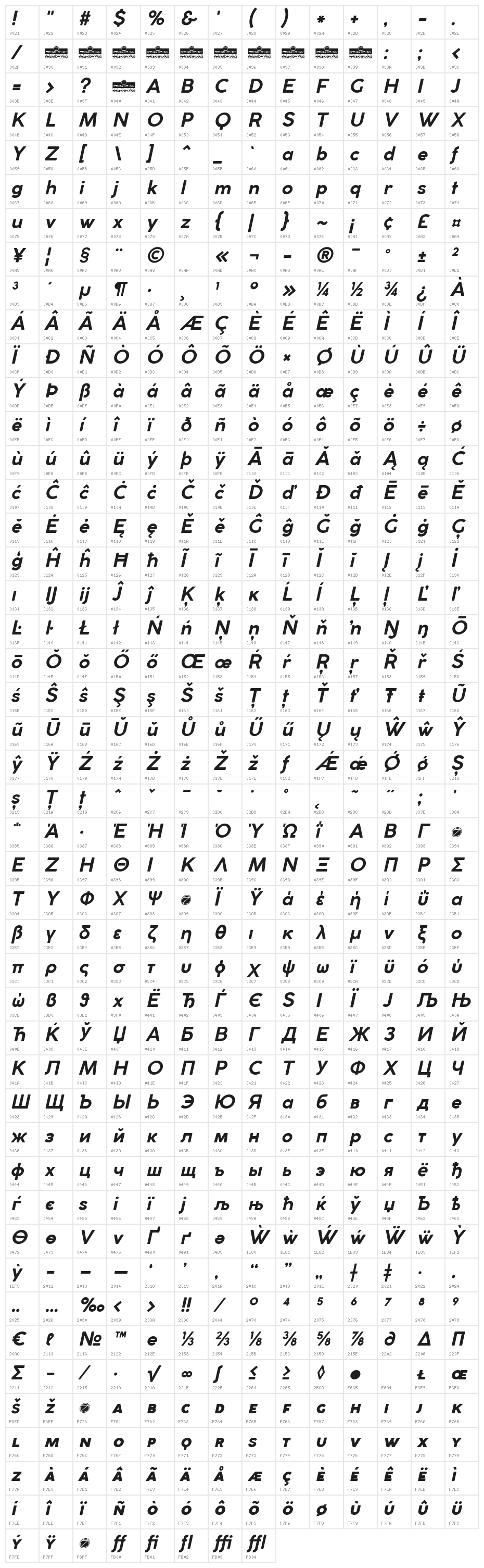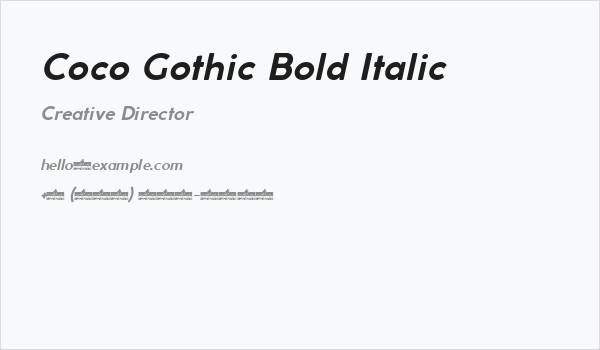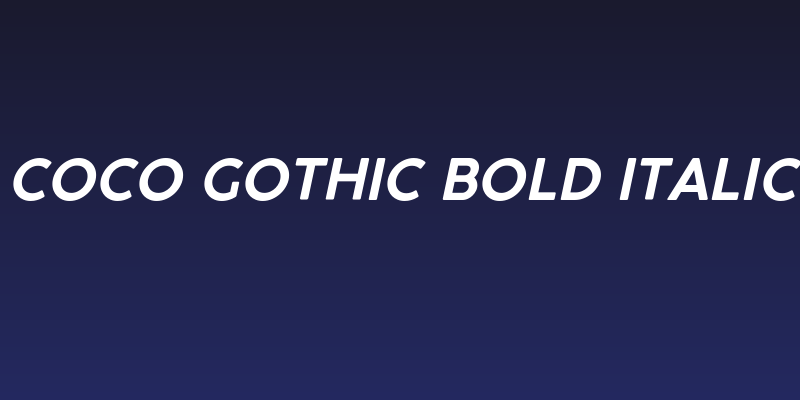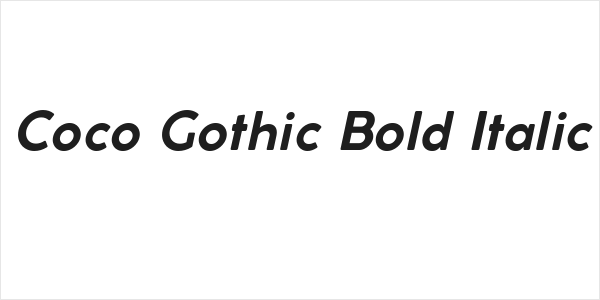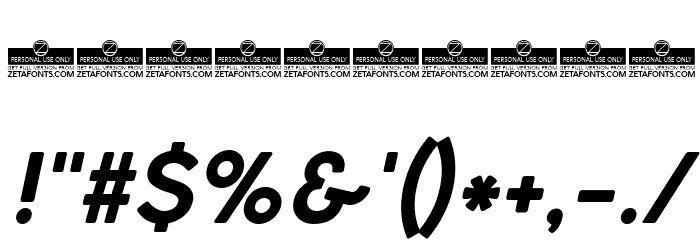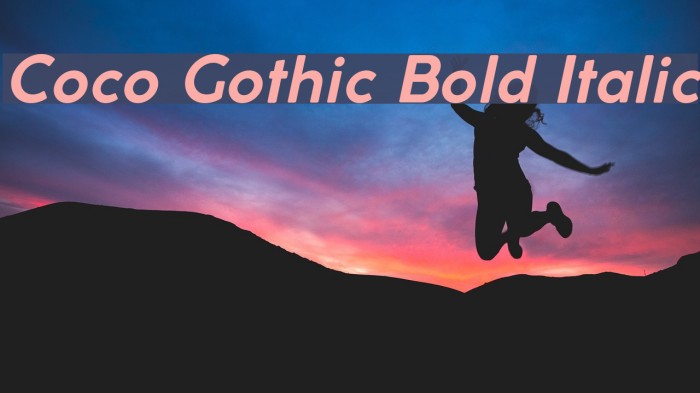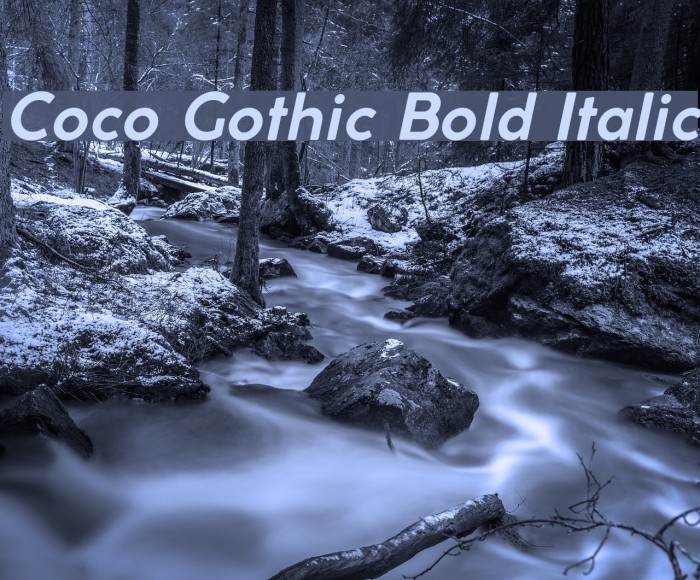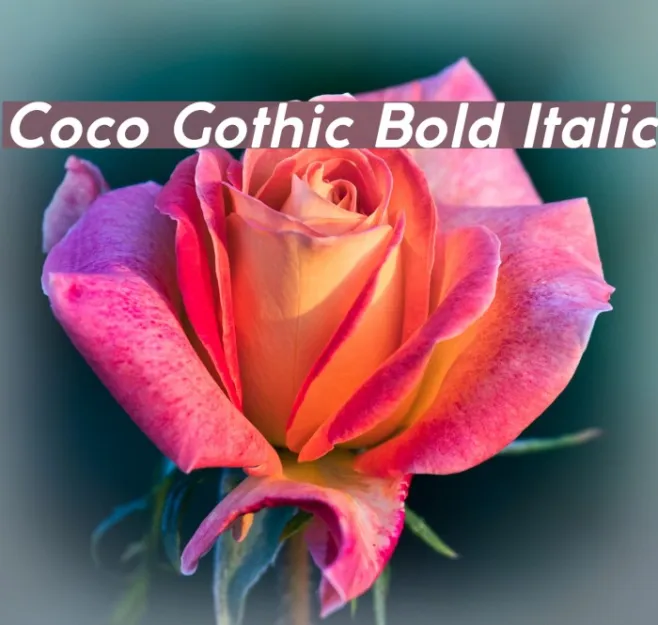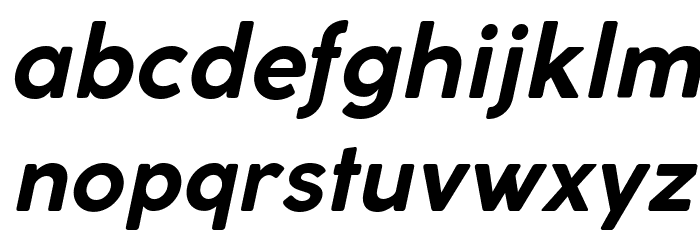
Coco Gothic Bold Italic Font
Coco Gothic Bold Italic Description
This font features a sleek and modern design with a bold and italicized style. The characters are clean and geometric, with a slight slant that adds a dynamic and forward-moving feel. The uppercase and lowercase letters are well-proportioned, maintaining a consistent weight throughout. The numerals and special characters are designed to match the overall aesthetic, ensuring a cohesive look across all text. The font's contemporary appearance makes it suitable for a variety of design projects, offering both readability and visual appeal.
| Use Case | Headlines, Logos, Branding |
| Proposed Projects | Ideal for branding, advertising, digital media, and editorial design. |